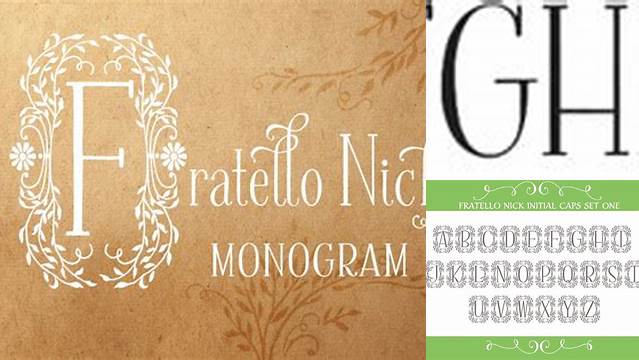
Alright, design enthusiasts, let's dive into the world of the Fratello Nick Split Monogram Tre Font! This font is a fantastic resource for anyone looking to add a touch of elegance and personalization to their projects. Whether you're a seasoned graphic designer or just starting out, the Fratello Nick font offers versatility and style. In this comprehensive guide, we'll explore everything you need to know about downloading, installing, and utilizing this amazing font. We'll cover its origins, design nuances, and how to effectively use it in your creative endeavors. Get ready to elevate your designs with this stunning font! Let's get started!
Fratello Nick Font: Unveiling the Design's Essence
Let's face it, the Fratello Nick Split Monogram Tre Font is more than just a typeface; it's a statement. Its design is clean, modern, and inherently stylish. The split monogram style is perfect for creating personalized logos, monograms, and branding materials. The “Tre” in its name likely refers to its three-part design, allowing you to create unique and eye-catching compositions. The font's elegance lies in its simplicity, making it incredibly versatile. The font's design makes it easily adaptable across various applications – from wedding invitations and personal stationary to business cards and website branding. It’s a font that grabs attention and adds a professional touch to anything you create. The designers behind Fratello Nick clearly put a lot of thought into its construction, ensuring that each letter, number, and symbol is meticulously crafted. Its clean lines and balanced proportions are a testament to its quality, making it a reliable choice for both personal and professional projects. So, whether you're crafting a logo for your new business, personalizing a gift, or creating stunning visual content for social media, this font is a must-have in your design toolkit. It's designed to look good in various contexts, reflecting a modern approach to visual communication. This font is more than just letters; it’s a tool for crafting visual stories. The way the design separates and merges creates opportunities for innovative design choices, making it an ideal choice for anyone keen on making their work stand out. Its readability, versatility, and aesthetic appeal set the Fratello Nick Split Monogram Tre Font apart. This design approach provides ample opportunities to personalize your projects and align with your individual style. The creators of the Fratello Nick Split Monogram Tre Font understood the importance of aesthetics, flexibility, and ease of use, making it a fantastic choice for every type of creative project. Therefore, embrace this elegant font, add it to your design arsenal, and start designing with confidence. You are now set to bring your creative vision to life, showcasing its design in the best possible light.
Designing with the Fratello Nick Tre Font: Creative Ideas & Tips
Now that you've successfully downloaded and installed the Fratello Nick Split Monogram Tre Font, let's explore some cool ways to use it! The split monogram design is super versatile, meaning you can apply it to everything from personal projects to professional branding. Think about creating logos for your own brand. The split monogram can be a great way to incorporate initials or a symbol in a visually appealing and unique manner. Use the font to create personalized wedding invitations, stationary, greeting cards, or even thank-you notes. It's perfect for a touch of elegance and uniqueness. The font is also great for crafting stunning social media graphics, such as Instagram posts, profile pictures, and headers. Make your social media content stand out with a personalized design that reflects your style. When creating designs, experiment with different color combinations and backgrounds. Contrast can highlight the font and make your designs visually compelling. Consider the context of your design. The Fratello Nick Split Monogram Tre Font is especially effective for formal or semi-formal applications. However, with a little creativity, you can incorporate it into more casual projects. Pair the font with other complementary fonts to create a balanced look. For example, use a simple sans-serif font for body text. It’s all about balancing visual elements to create a visually appealing layout. Try using the font in both large and small sizes. Its versatility allows for great customization. By experimenting with these ideas and tips, you can unlock the full potential of the Fratello Nick Split Monogram Tre Font and create beautiful and memorable designs.
Color Palettes and Backgrounds for Optimal Design
Choosing the right color palette and background is crucial to making your designs pop. Consider using contrasting colors that highlight the split monogram design. For example, pairing a dark font color with a light background, or vice versa, can create a strong visual impact. Remember that the goal is to make the letters readable and appealing. Experiment with different colors to see which ones best reflect your brand or personal style. Using gradients can add depth and interest to your designs. Use subtle gradients in the background or in the font itself to create a modern and sophisticated look. If you're designing for print, ensure that your color choices are suitable for the printing process. For example, make sure that the colors in your design do not look muddy and the resolution is set to high quality (300 DPI or higher). When it comes to backgrounds, simple backgrounds often work best. A plain background or a subtle texture can help the font stand out, while a busy background can distract from the design. Consider using high-quality images. Just be sure they complement the font. Always ensure the text is readable, regardless of the background. Consider using a dark background with a light font or a light background with a dark font to ensure optimal readability. Test your designs on various devices and platforms. It’s crucial to make sure your color choices look good across different screens and in print. You can also create design guidelines that dictate the color and background combinations to ensure consistency across all your projects. By carefully considering color palettes and backgrounds, you can effectively leverage the Fratello Nick Split Monogram Tre Font and create visually stunning designs that capture your audience's attention.